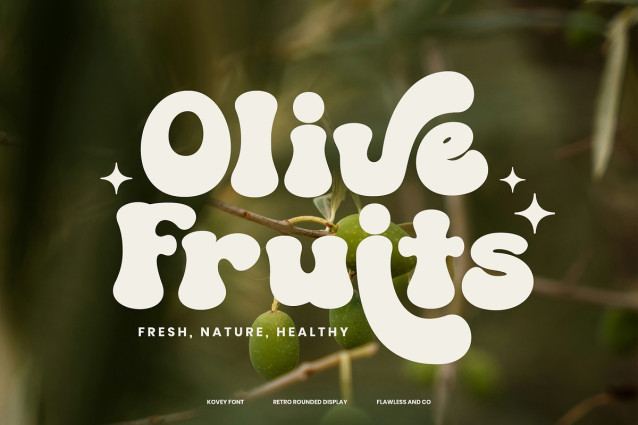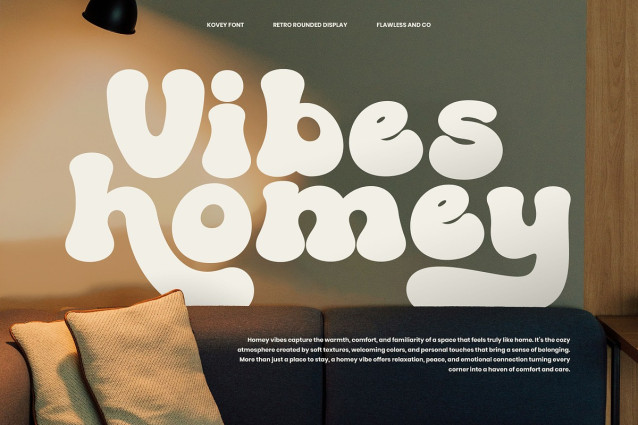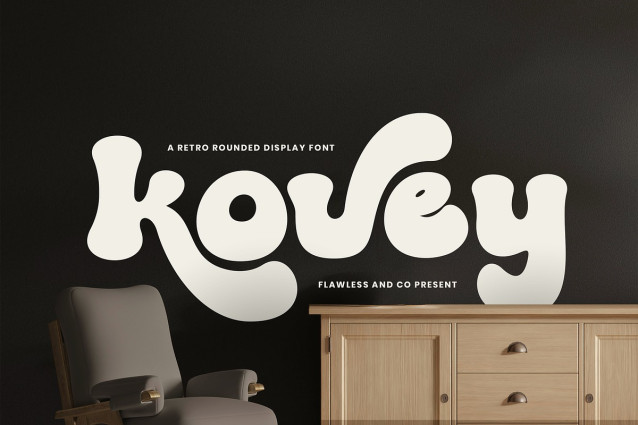
Kovey Display Font
Kovey Display Font is a bold and playful retro display font that brings groovy vibes and nostalgic charm to your designs. With its soft rounded edges and bubbly letterforms, this font captures the essence of vintage aesthetics while staying modern and fresh. Perfect for adding personality and fun, Kovey makes every word feel vibrant and full of life. Whether you’re working on logos, packaging, posters, or social media graphics, Kovey delivers a unique retro touch that instantly grabs attention. Its smooth curves and bold shapes make it versatile for both digital and print projects, ensuring your designs stand out with character and style